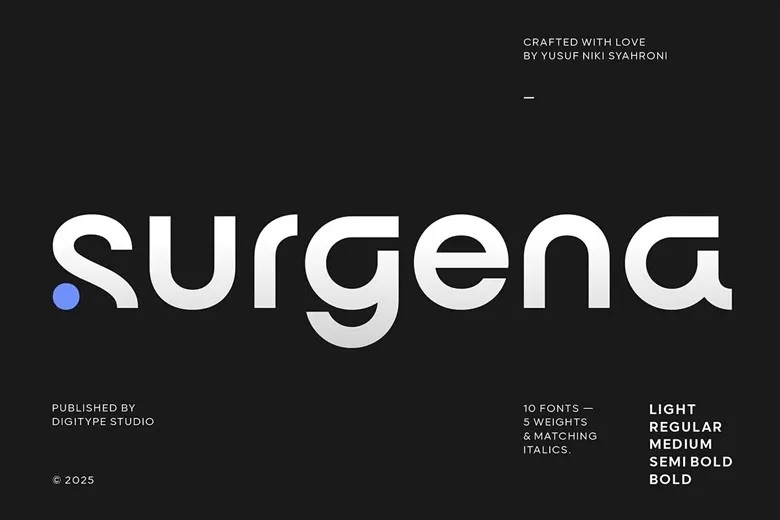
Surgena Font
Surgena is a rounded sans serif font of a relatively recent release, characterized by quite simple forms and strict geometric shapes. Responsible for the improvements of the details and the clear hierarchy that they have implemented, it gives a professional, modern, and active perspective that makes it ideal on branding, editorial and digital projects.
With the both thinner and bolder versions, OpenType features, and the set of stylistic alternates, the lettering keeps high readability and extensibility at the same time to meet the needs of the projects that are characterized by the necessity of a contemporary, strong and sleek look.
Surgena Sans Serif Font